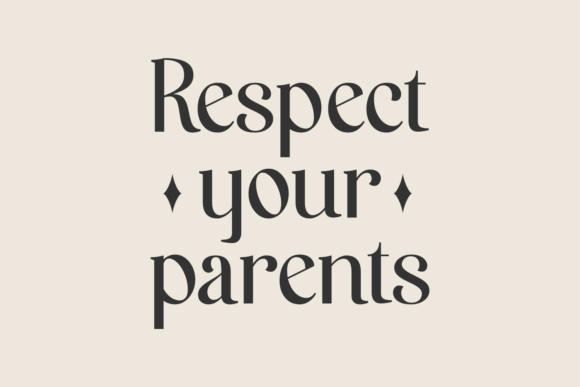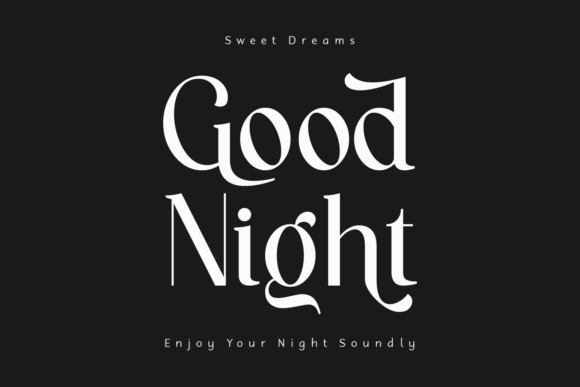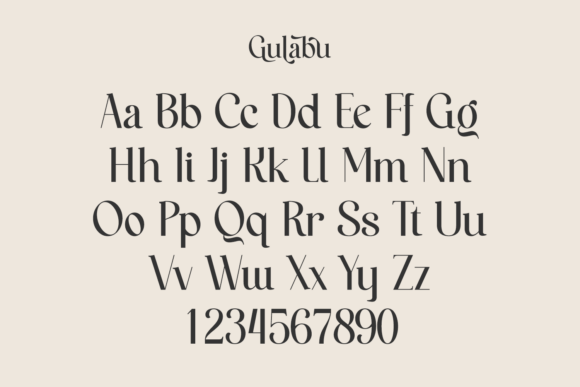
Introduction to Gulabu Font
Gulabu is a modern serif font with a stylish and elegant look.
It features clean lines and soft curves, making it perfect for both headlines and body text Its sophisticated design adds a touch of class to any project, making it a great choice for branding, invitations, or any creative work.